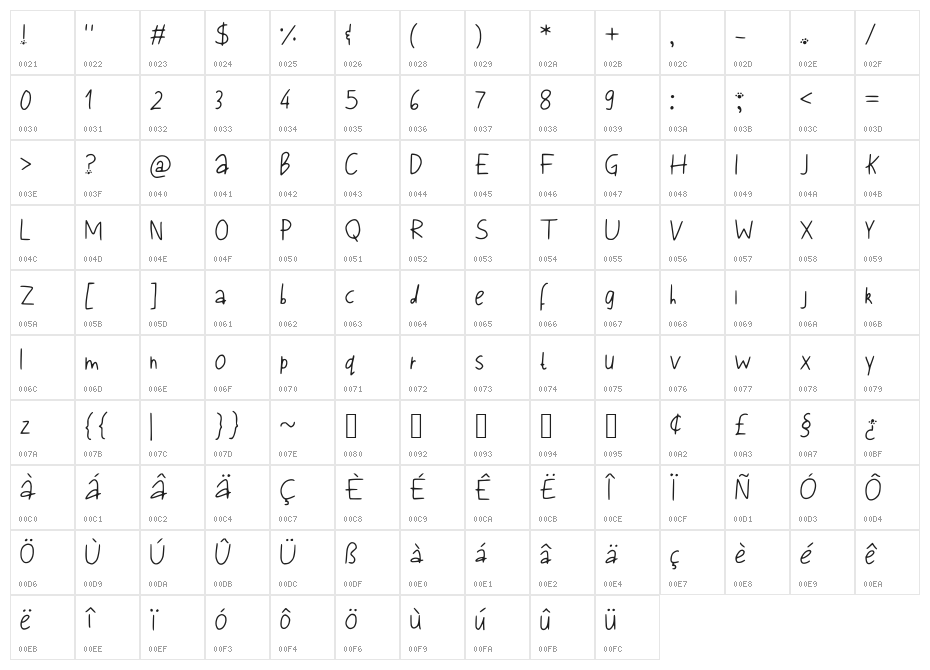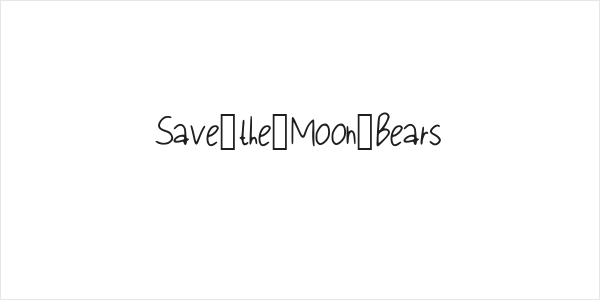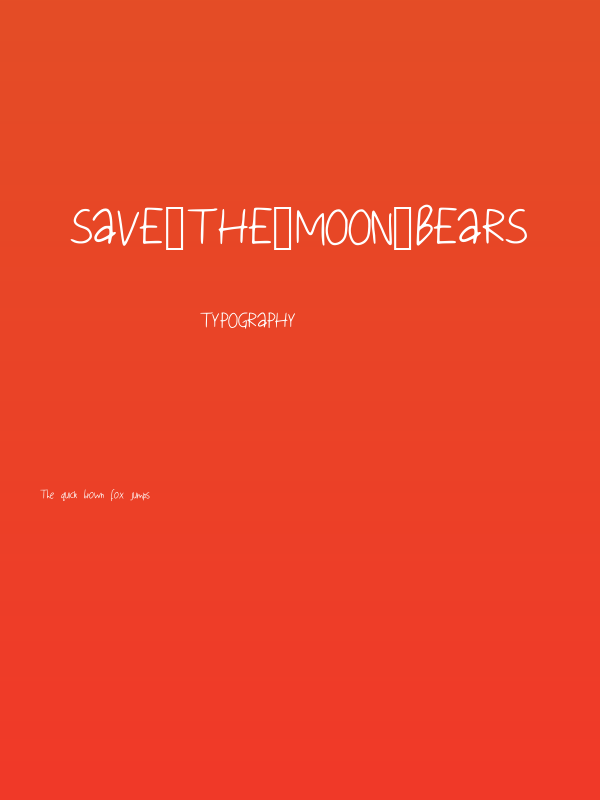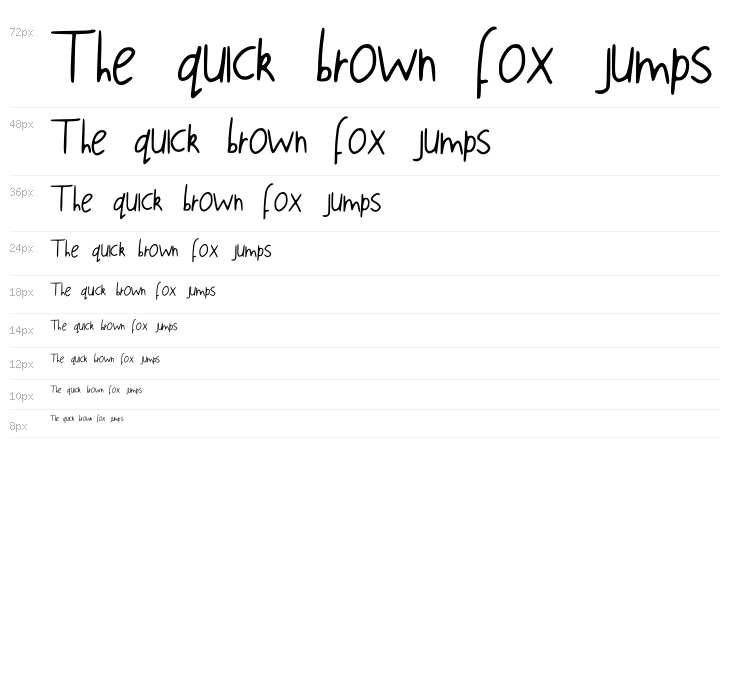
Save_the_Moon_Bears Font
Save_the_Moon_Bears Description
This font features a playful and informal handwritten style, characterized by its uneven strokes and casual appearance. The letters have a slightly irregular baseline, adding to the whimsical and friendly feel. The uppercase and lowercase letters are distinct, with the uppercase being slightly taller and more pronounced. The numerals are consistent with the overall style, maintaining the same playful and informal look. Special characters are included, complementing the font's casual aesthetic. This font is ideal for projects that require a personal touch or a relaxed vibe.
| Proposed Projects | Ideal for greeting cards, children's books, informal invitations, and playful branding. |